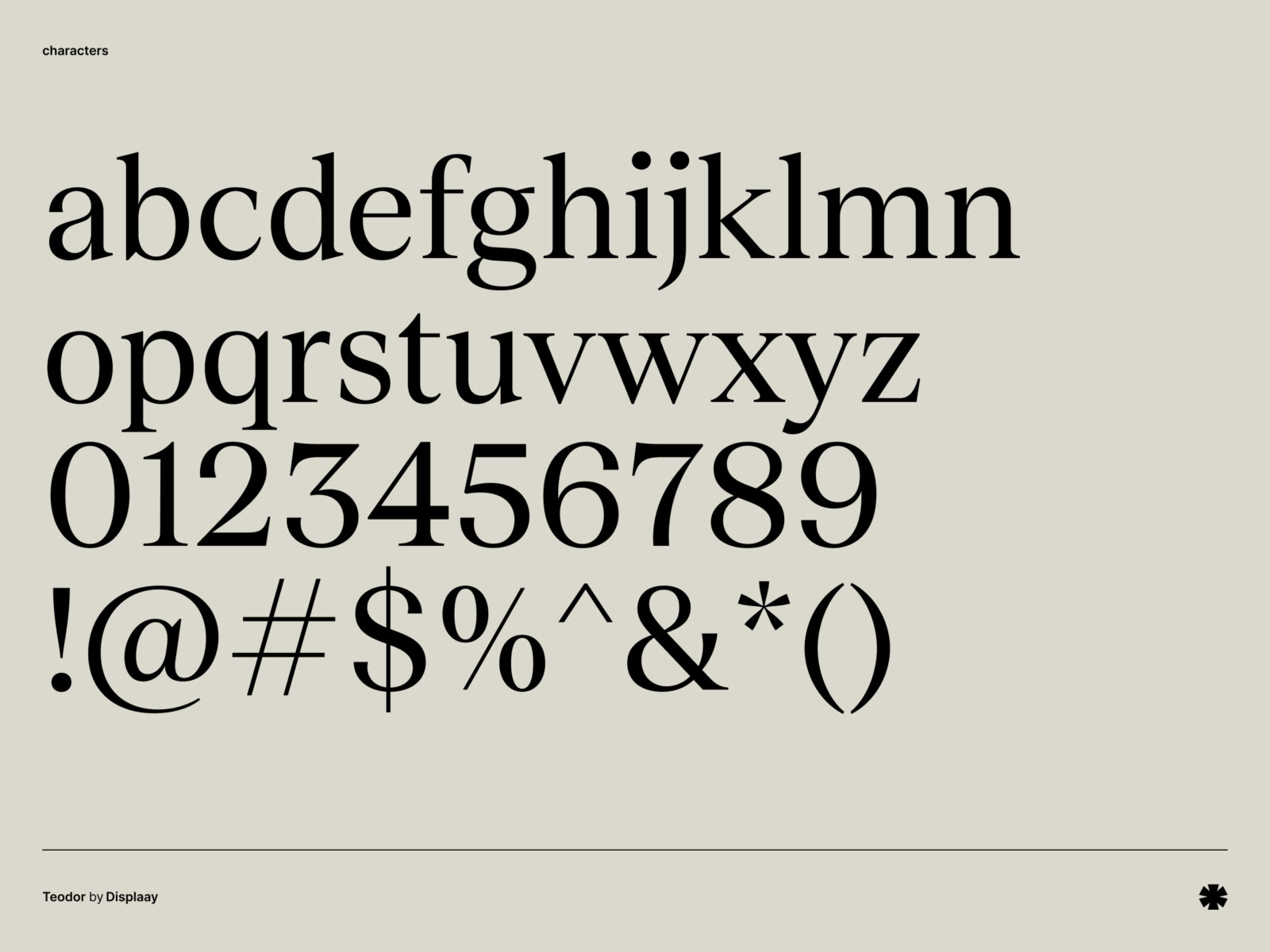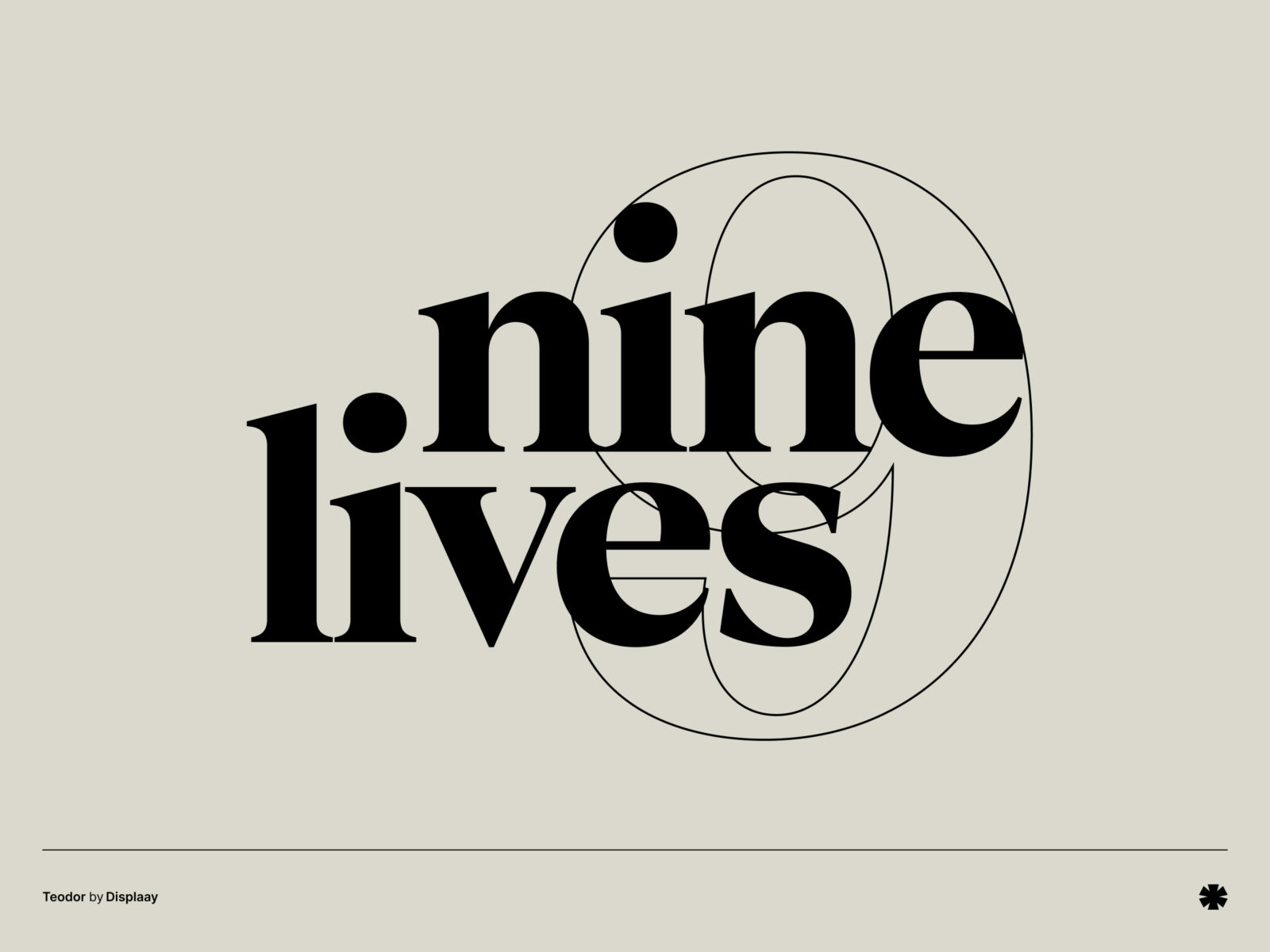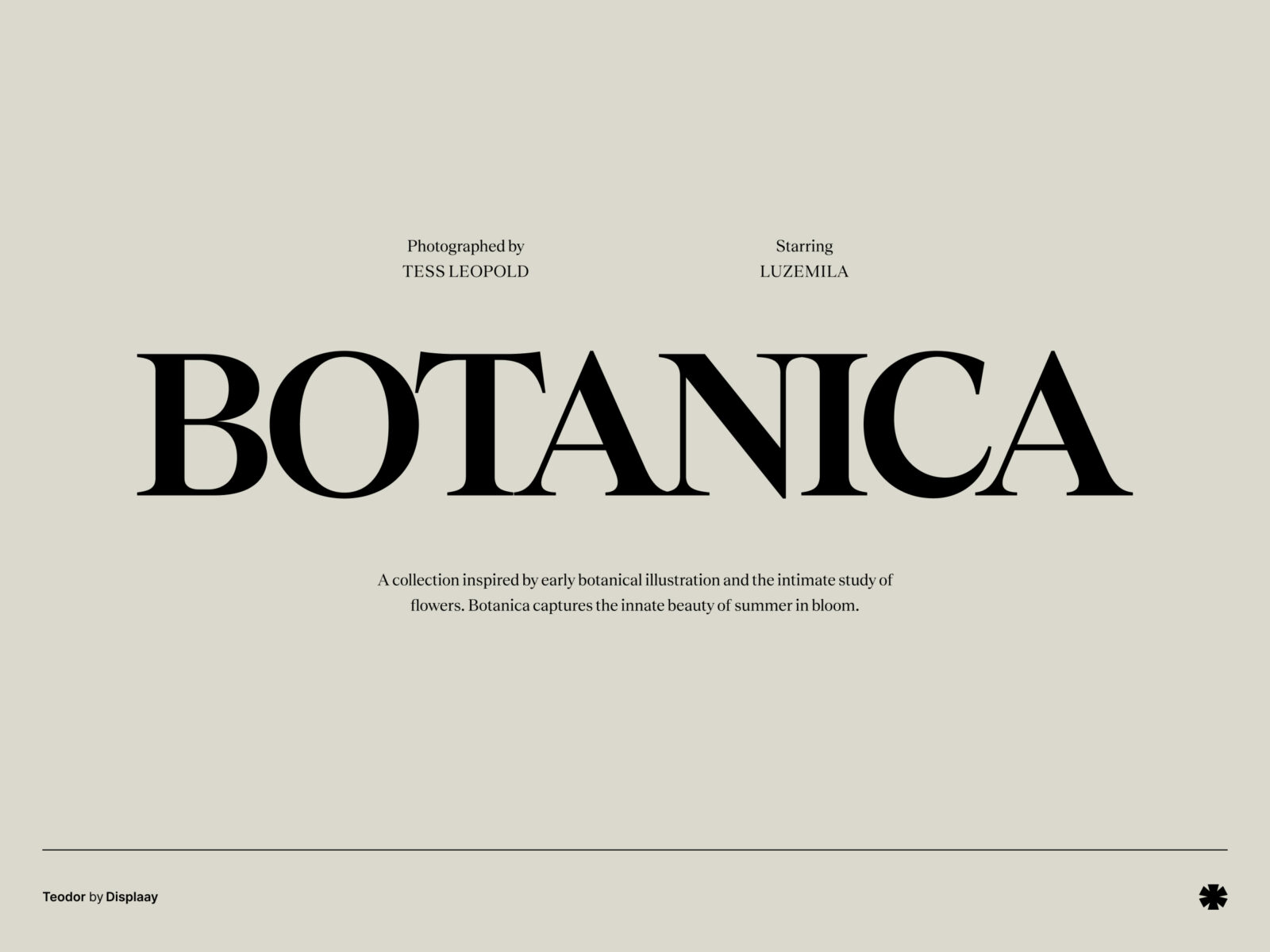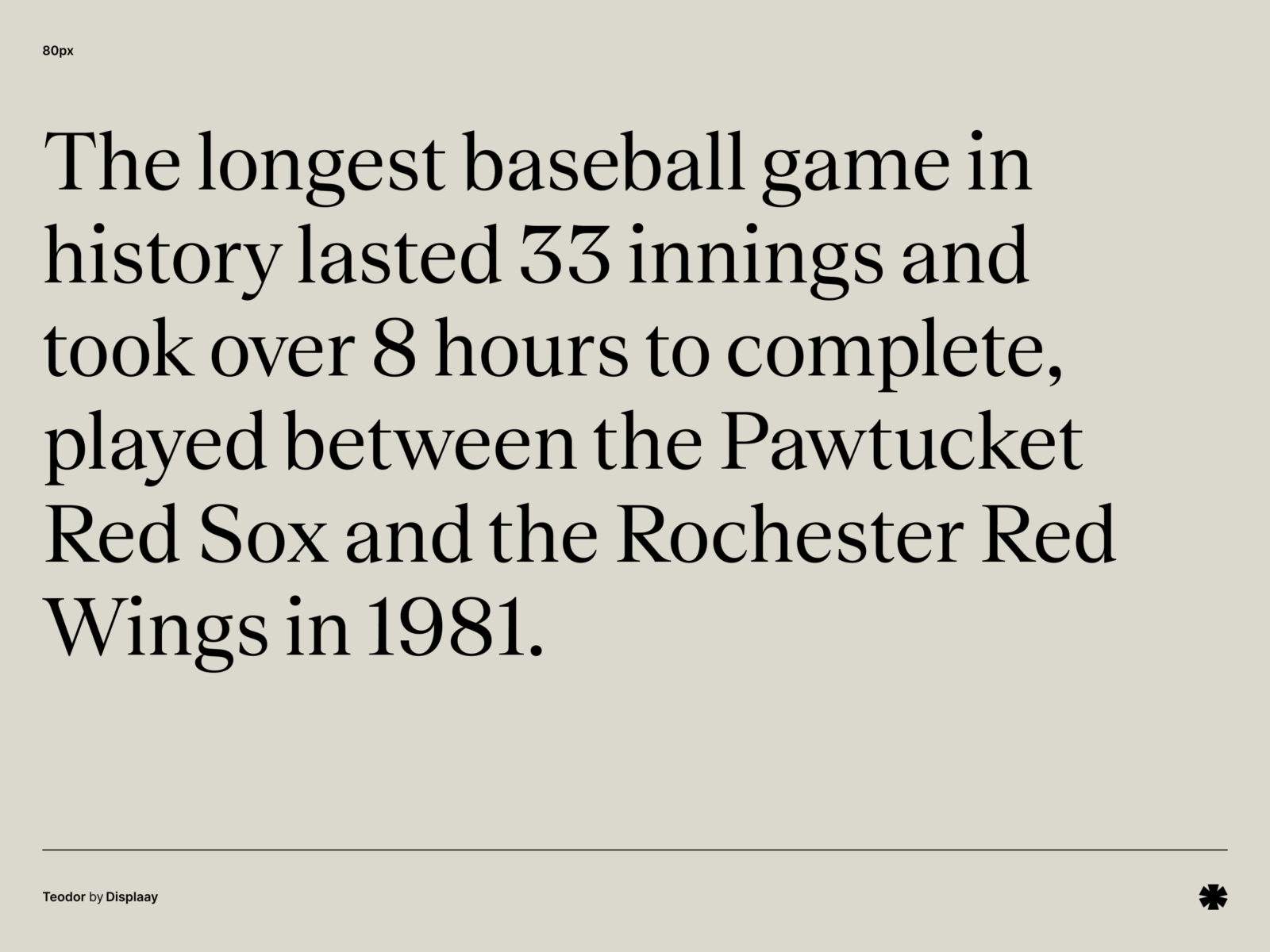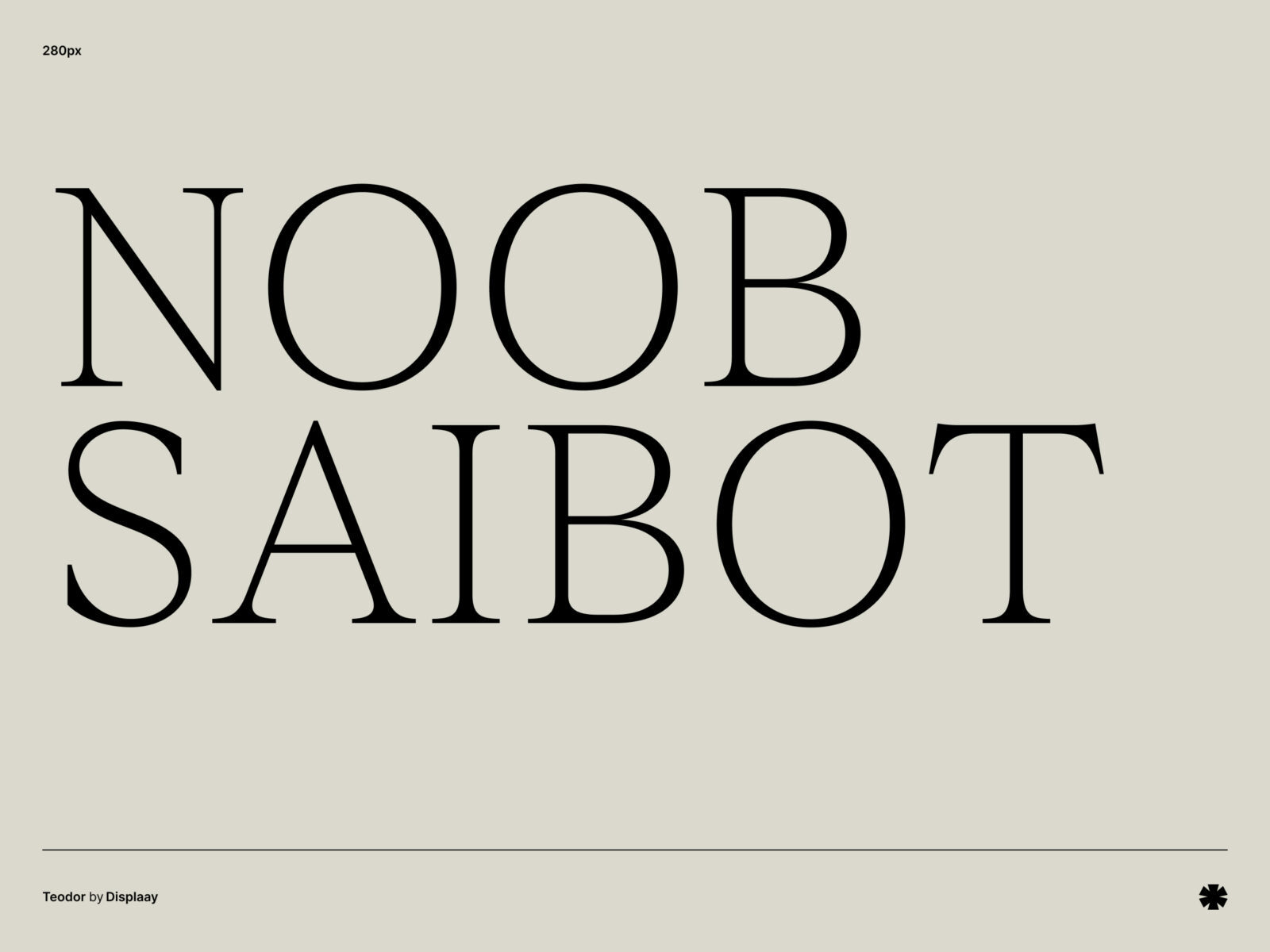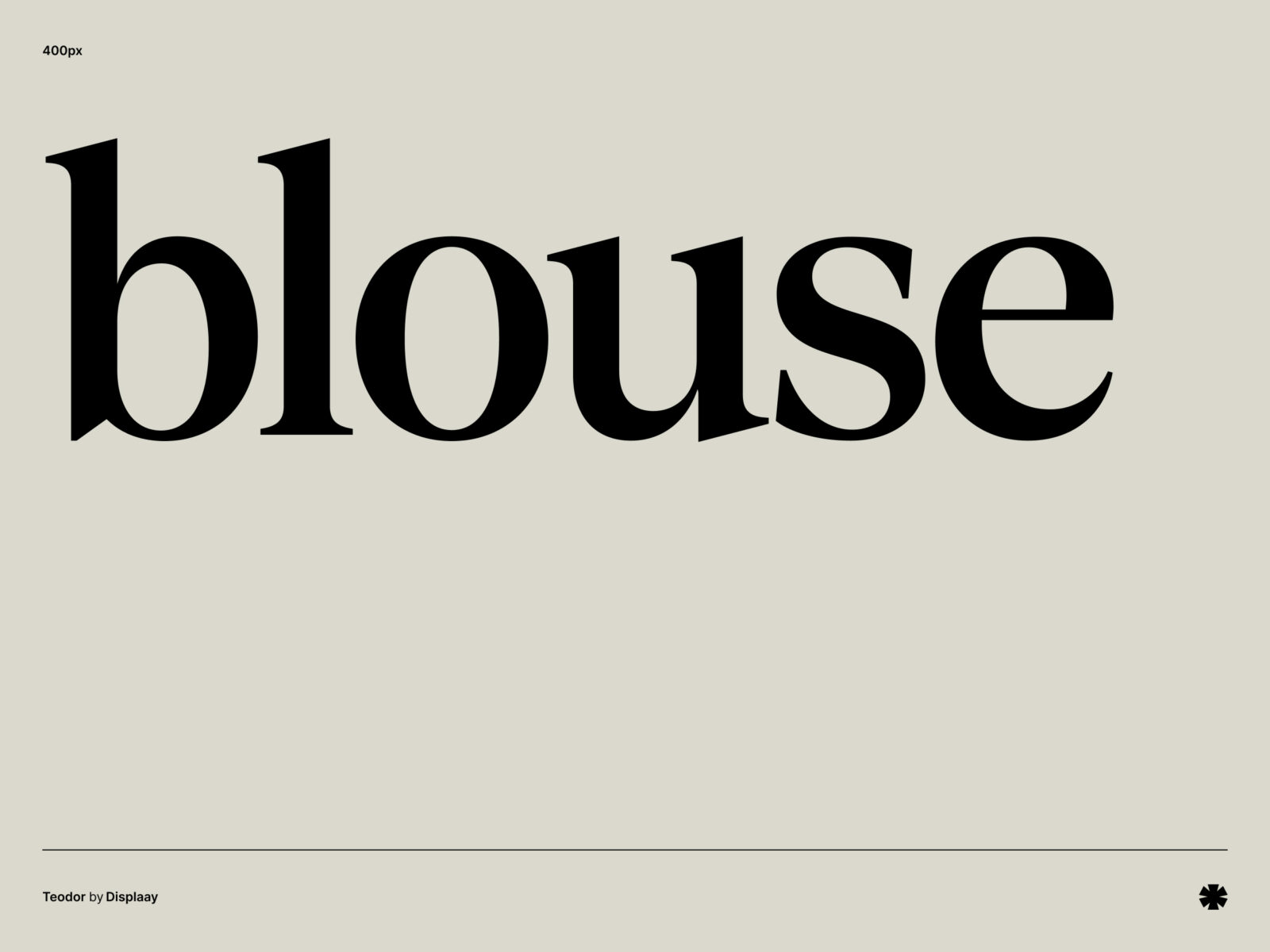
Teodor is a serif typeface with a baroque character that makes it a strong choice for headlines. It shares some traits with classics like Times, Times New Roman, Baskerville and Goudy.
designer
Martin Vácha, Kristina Jandová